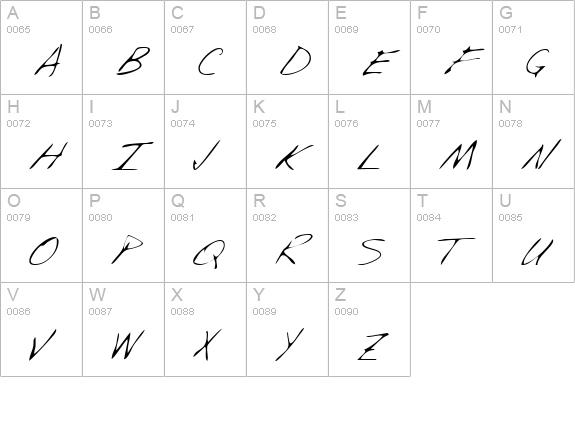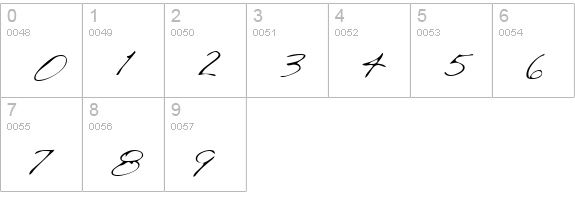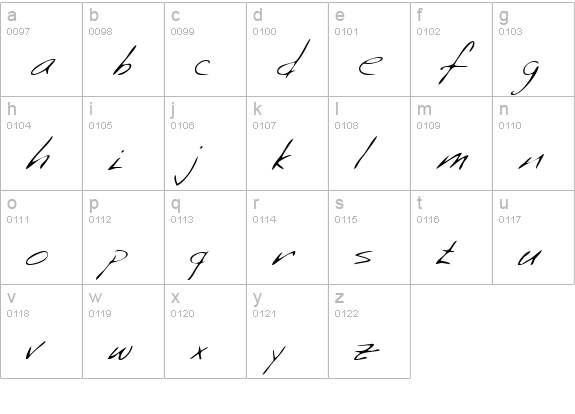
SaffronsHand Regular Font Details
SaffronsHand Regular is the standard, neutral variant in the SaffronsHand typeface family \xE2\x80\x94 well suited to general body text, paragraphs, and standard typographic work.
Introducing SaffronsHand Regular, a visually stunning font that effortlessly combines elegance with a touch of whimsy. This versatile typeface is perfect for adding a unique and personal touch to any design project. SaffronsHand Regular boasts beautifully hand-drawn characters that exude a sense of warmth and authenticity. Each letter is meticulously crafted, with delicate strokes and intricate details that capture the essence of true craftsmanship. The result is a font that is both sophisticated and approachable, making it ideal for a wide range of applications. Whether you are designing a wedding invitation, creating a logo for a boutique brand, or crafting a heartfelt quote graphic for social media, SaffronsHand Regular will elevate your design to new heights. Its flowing curves and gentle angles create a harmonious rhythm, ensuring that your text will captivate and engage your audience. One of the most remarkable features of SaffronsHand Regular is that it is free to download at FontsMarket.com. Yes, you read that right - this stunning font is available to you at no cost. We believe that exceptional design should be accessible to everyone, and that is why we are thrilled to offer SaffronsHand Regular as a complimentary resource. So go ahead and unleash your creativity with SaffronsHand Regular. Download this remarkable font today and watch as your designs come to life with a touch of elegance and charm. With SaffronsHand Regular, the possibilities are endless.